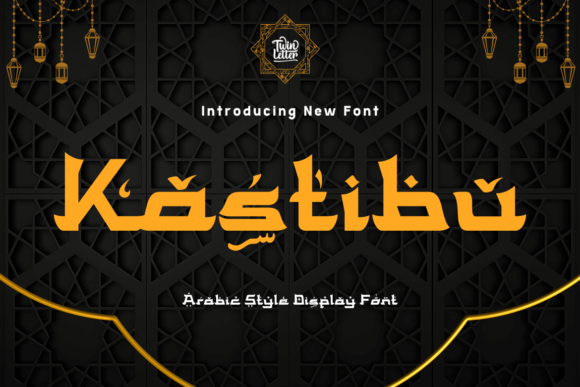
Introducing Kastibu Font: The Ornate Gateway to Exquisite Arabic Aesthetics
In a world saturated with visual noise, capturing the attention of your audience requires a touch of brilliance. And that's precisely where Kastibu Font steps in – an ornate display font family, meticulously crafted to bestow an air of elegance and sophistication upon your designs. Kastibu isn't just a font; it's a portal to the enchanting world of Arabic aesthetics, allowing you to weave a tapestry of visual intrigue that resonates with your audience.
Unleash the Allure of Antiquity, Infuse Your Designs with Timeless Charm
Kastibu Font is not merely a collection of characters; it's a vessel carrying the legacy of ancient Arabic calligraphy. Each letterform is a testament to the artistry and craftsmanship of bygone eras, meticulously rendered with intricate details that evoke a sense of timeless elegance. Whether you're designing a logo, crafting a poster, or creating social media graphics, Kastibu Font will imbue your work with an aura of sophistication that commands attention.
Tailored for Branding Excellence, Elevate Your Identity to Unprecedented Heights
In the competitive landscape of today's marketplace, a strong brand identity is the cornerstone of success. Kastibu Font is the ultimate tool for forging an identity that exudes professionalism, creativity, and a touch of exclusivity. Its visually striking letterforms are designed to make your brand stand out from the crowd, leaving an indelible impression on your audience. Whether you're a small business owner, a seasoned marketer, or an aspiring entrepreneur, Kastibu Font will elevate your branding efforts to unparalleled heights.
A Versatile Gem for Creative Expression, Unleash Your Artistic Vision
Kastibu Font is not confined to a single realm of design; its versatility knows no bounds. Whether you're crafting a captivating logo, designing eye-catching posters, or creating social media graphics that spark engagement, Kastibu Font is your trusty companion. Its adaptability extends to a wide range of applications, empowering you to express your creativity freely and effectively.